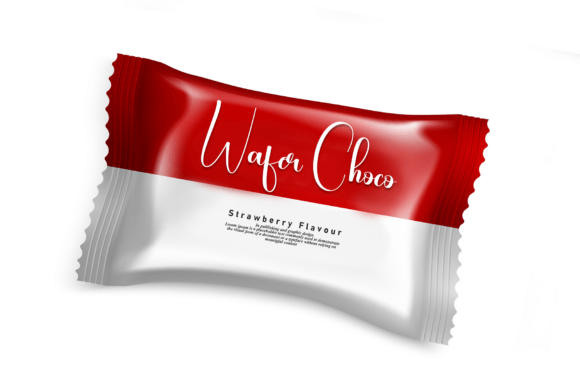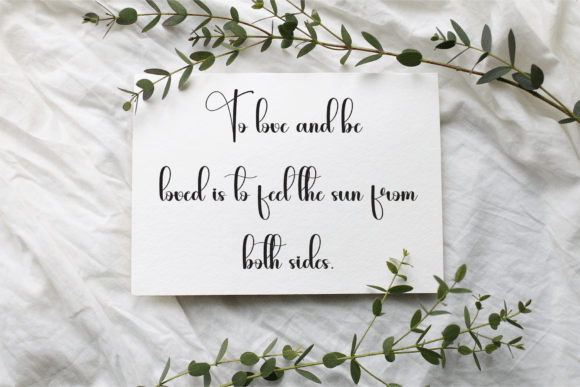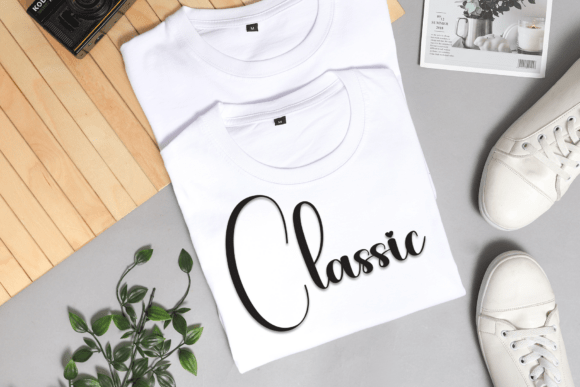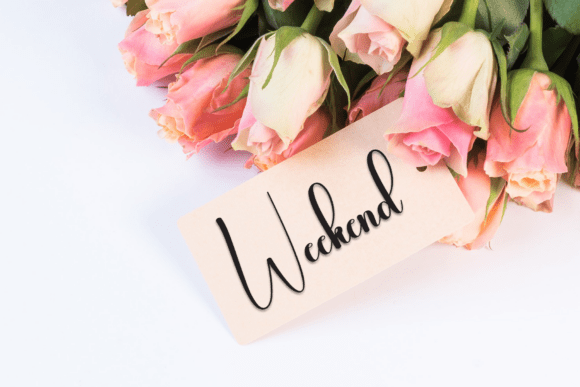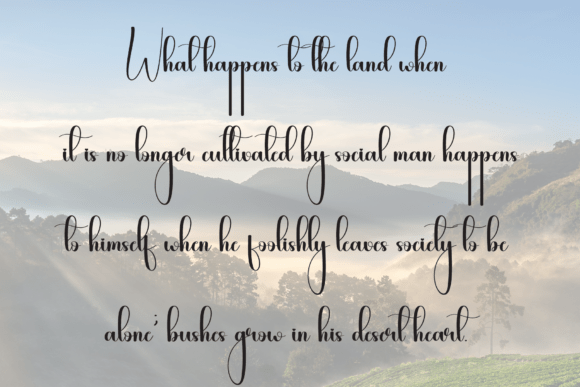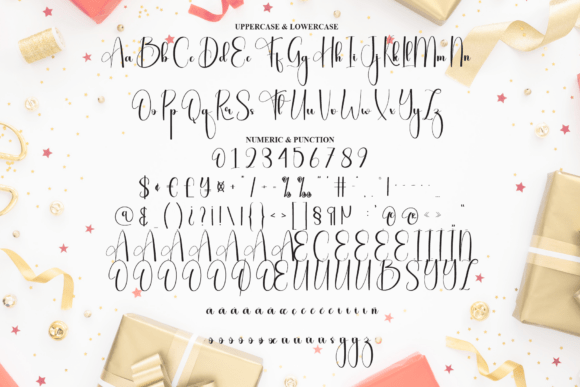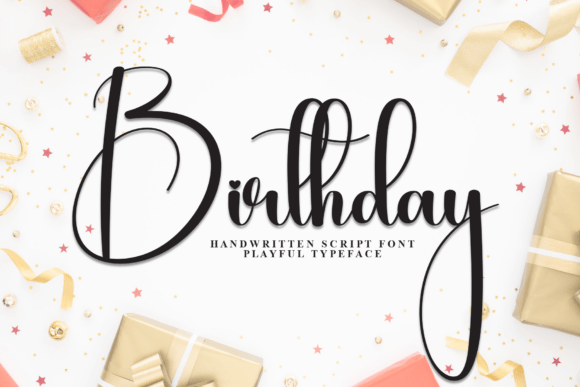
Introducing Birthday Font: The Perfect Blend of Elegance and Playfulness
Are you looking for a font that can add a touch of sophistication and whimsy to your designs? Look no further than Birthday Font, a stylish handwritten script font that is sure to elevate your projects to the next level. With its fluid strokes and charming curves, this typeface brings a personal feel to any design, making it ideal for logos, packaging, and invitations.
A Modern Twist on Classic Elegance
Birthday Font is a masterful blend of modern elegance and playful charm. Its sleek, cursive lines and carefully crafted letterforms evoke a sense of luxury and refinement, while its whimsical touches and irregularities add a dash of personality and fun. Whether you’re designing a logo, creating packaging for a product, or crafting invitations for a special occasion, this font is sure to bring a touch of warmth and sophistication to your project.
- Fluid Strokes: Birthday Font features fluid, connected strokes that give it a smooth, handwritten feel.
- Charming Curves: The font’s carefully crafted curves and letterforms add a touch of whimsy and personality to any design.
- Modern Elegance: With its sleek lines and refined letterforms, Birthday Font is perfect for designs that require a touch of sophistication.
- Playful Touch: The font’s irregularities and quirks add a dash of playfulness and fun to any project.
Uses for Birthday Font
Birthday Font is a versatile typeface that can be used in a wide range of design applications. Here are just a few ideas to get you started:
- Logos: Use Birthday Font to create a unique and memorable logo for your business or brand.
- Packaging: Add a touch of elegance and sophistication to your product packaging with this beautiful font.
- Invitations: Create stunning invitations for weddings, parties, and other special occasions with Birthday Font.
- Stationery: Use this font to create beautiful stationery, including letterheads, greeting cards, and more.
Why Choose Birthday Font?
With so many fonts to choose from, why should you choose Birthday Font for your next project? Here are just a few reasons:
- Unique and Memorable: Birthday Font is a one-of-a-kind typeface that is sure to make your designs stand out.
- Versatile: This font can be used in a wide range of design applications, from logos and packaging to invitations and stationery.
- Elegant and Playful: Birthday Font combines the best of both worlds, with its sleek lines and whimsical touches.
- Easy to Read: Despite its elegant and cursive nature, Birthday Font is easy to read and understand, making it perfect for designs that require a clear and concise message.
Tips for Using Birthday Font
Here are a few tips for getting the most out of Birthday Font:
- Use it Sparingly: While Birthday Font is a beautiful typeface, it can be overwhelming if used too much. Use it sparingly to add a touch of elegance and whimsy to your designs.
- Pair it with Other Fonts: Experiment with pairing Birthday Font with other fonts to create a unique and interesting contrast.
- Adjust the Size and Color: Play around with different sizes and colors to find the perfect combination for your design.
In conclusion, Birthday Font is a stylish and versatile typeface that is perfect for designers and crafters looking to add a touch of elegance and whimsy to their projects. With its fluid strokes, charming curves, and modern elegance, this font is sure to bring a personal feel to any design. Whether you’re creating logos, packaging, invitations, or stationery, Birthday Font is a great choice. So why not give it a try and see the difference it can make in your designs?